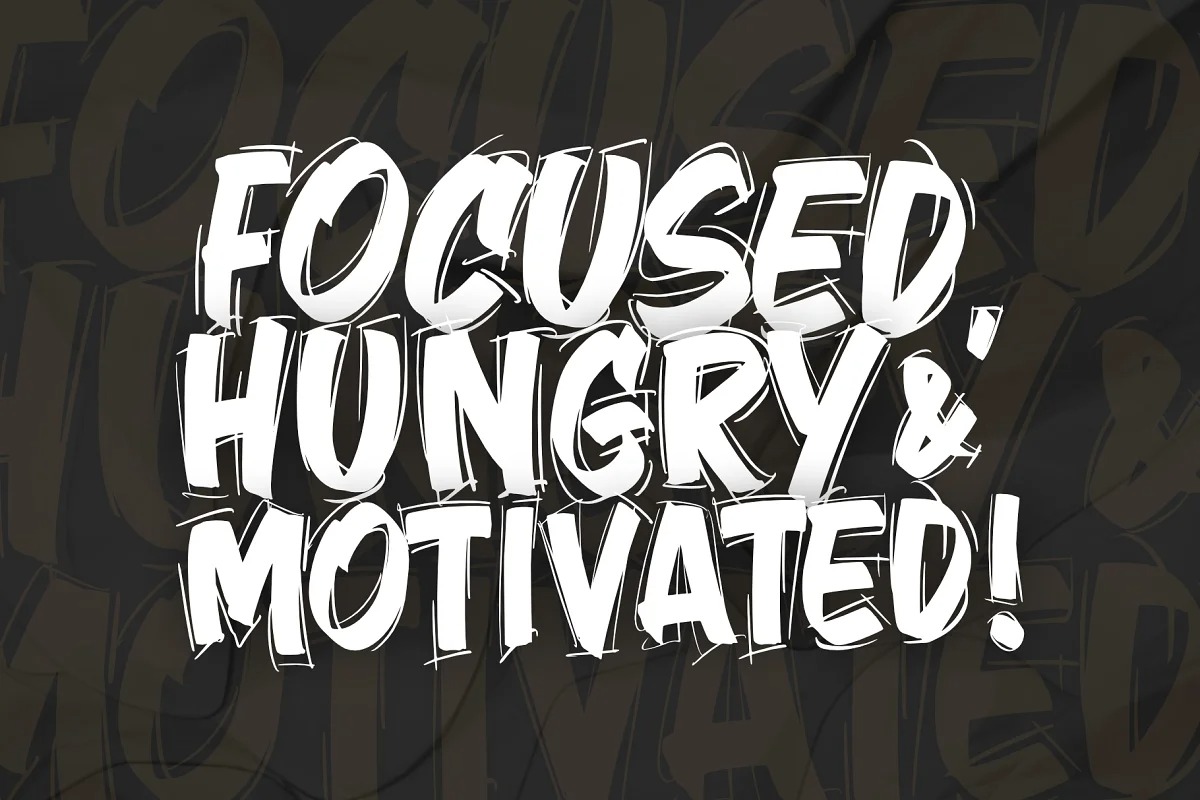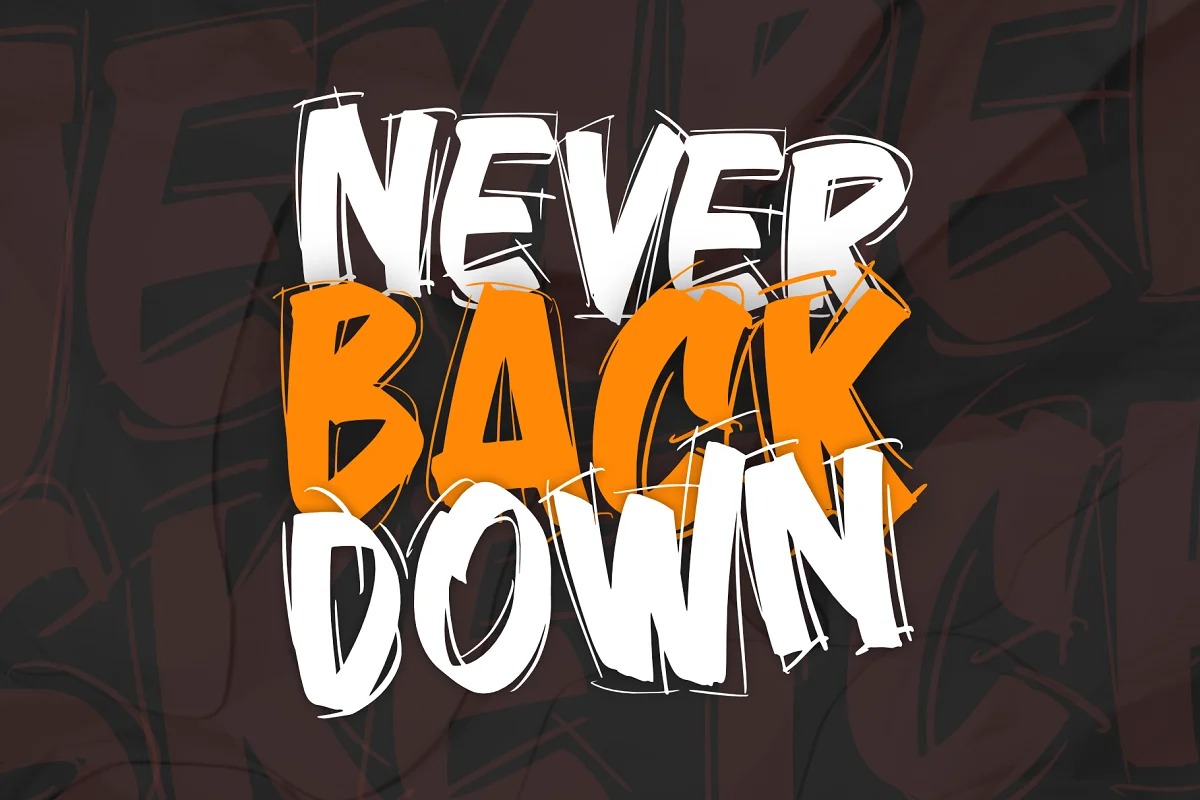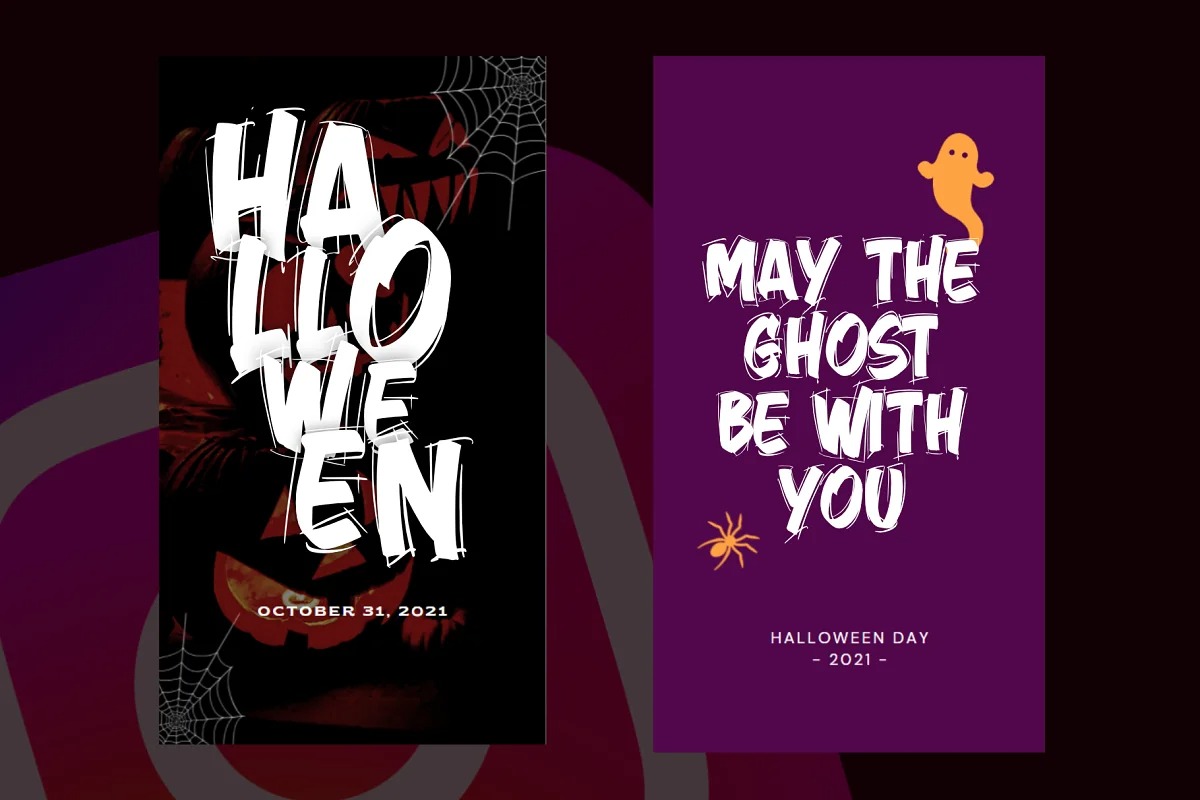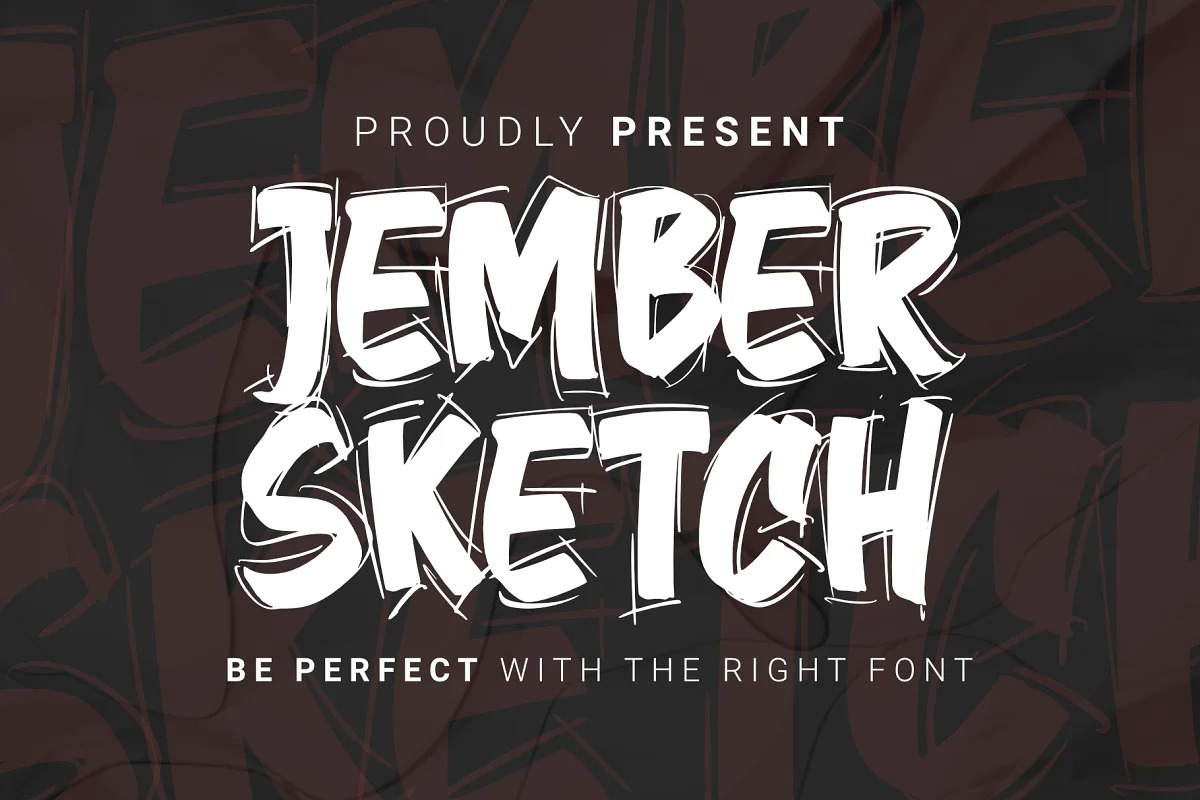
Jember Sketch Brush Font
This is a spectacular brush typeface with a Graffiti style and with a sign decorative inside for your design look awesome. It would be very good for logos, branding, poster, advertising, and packaging design. You can use this font to add emotions and emphasize what you want to get across to the audience.